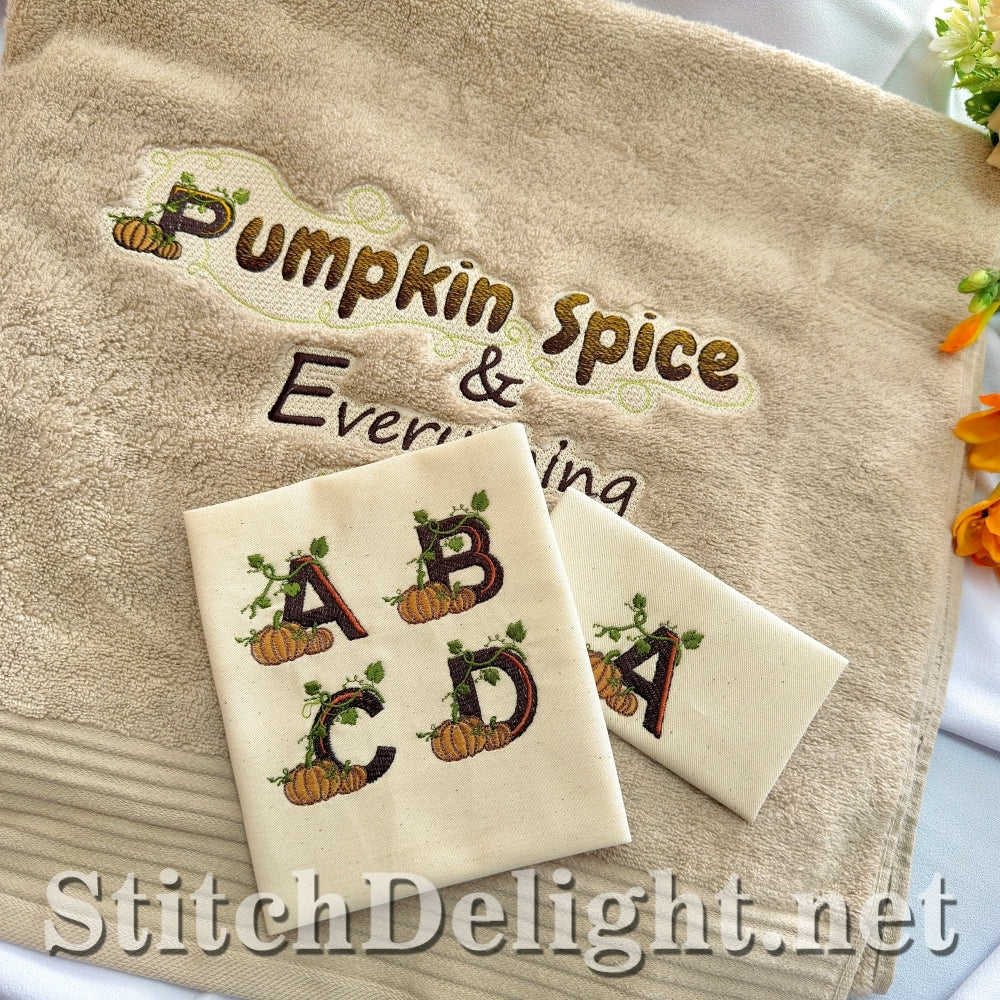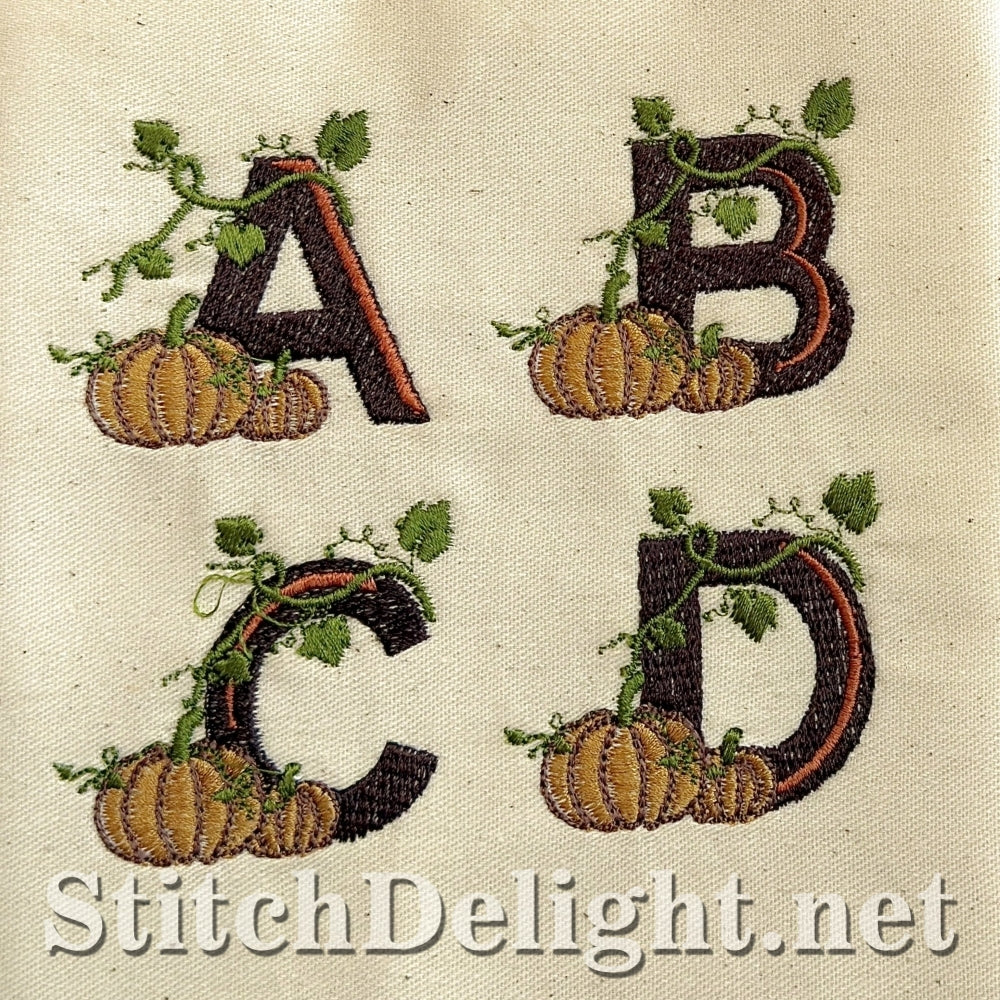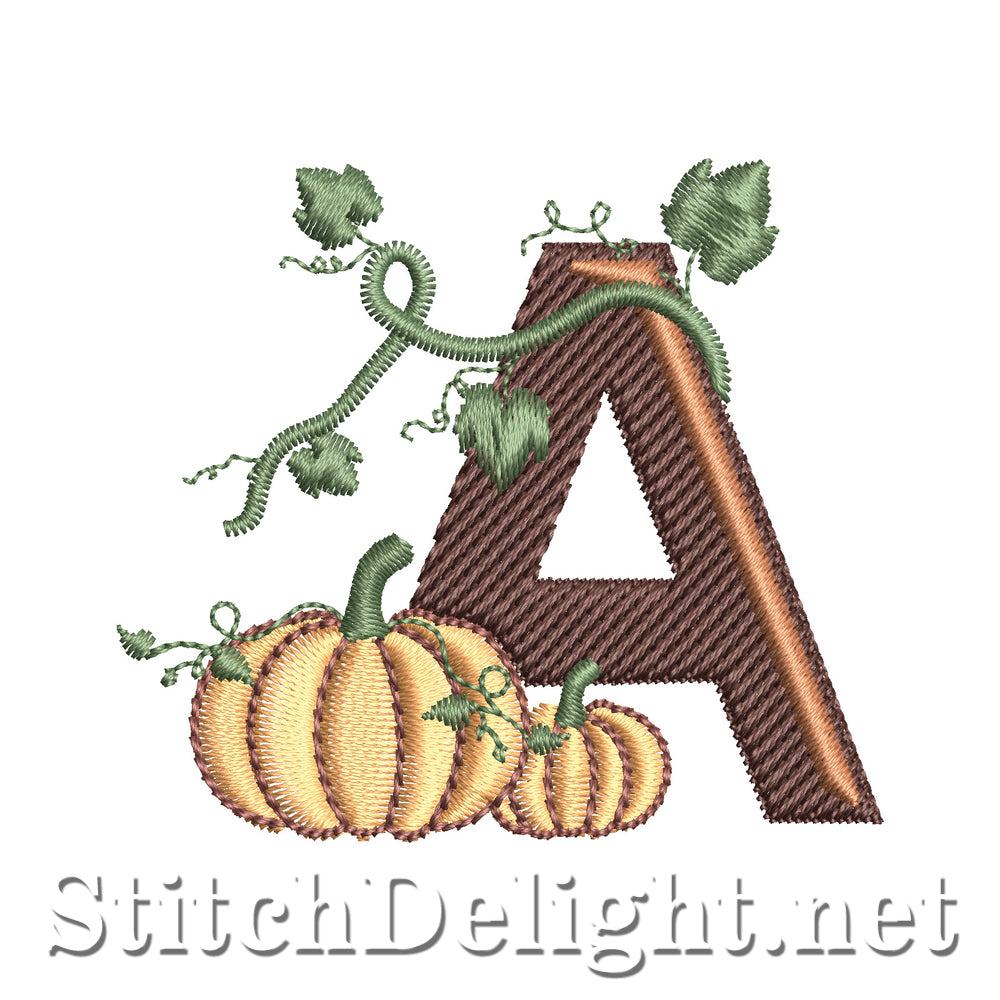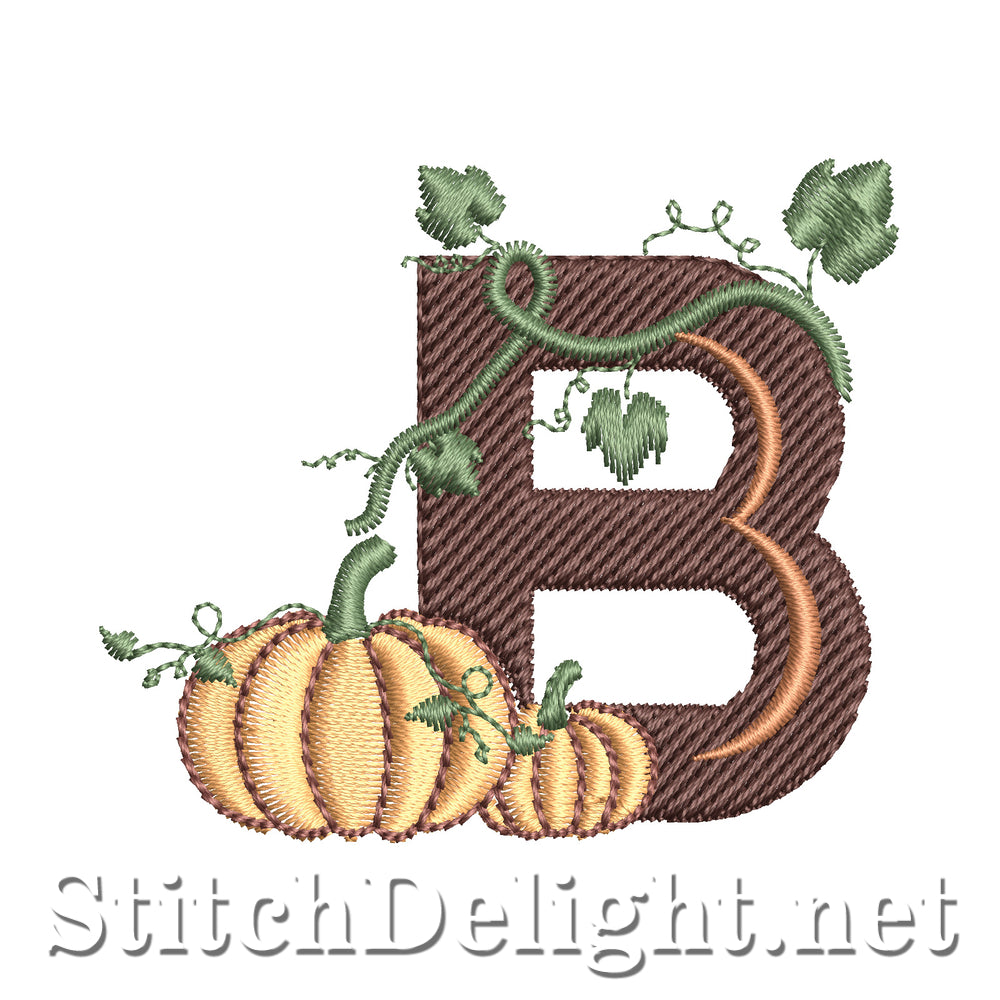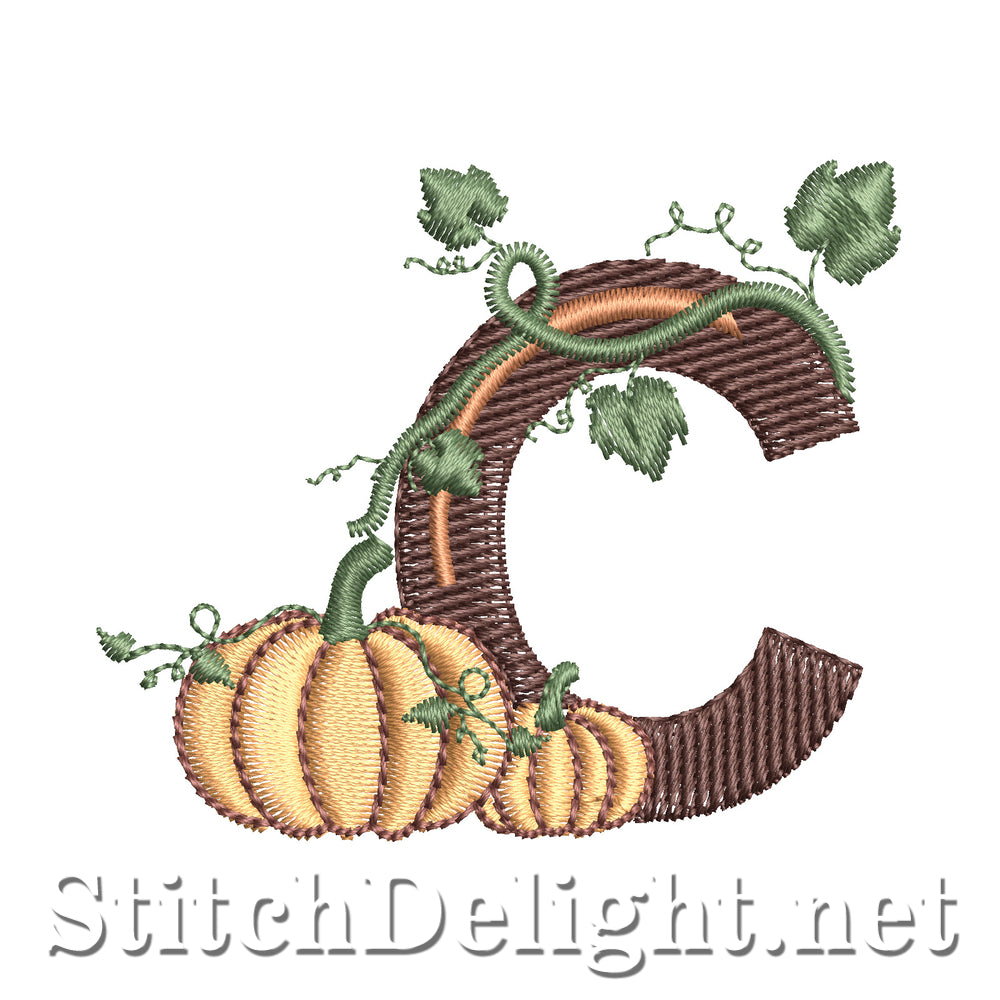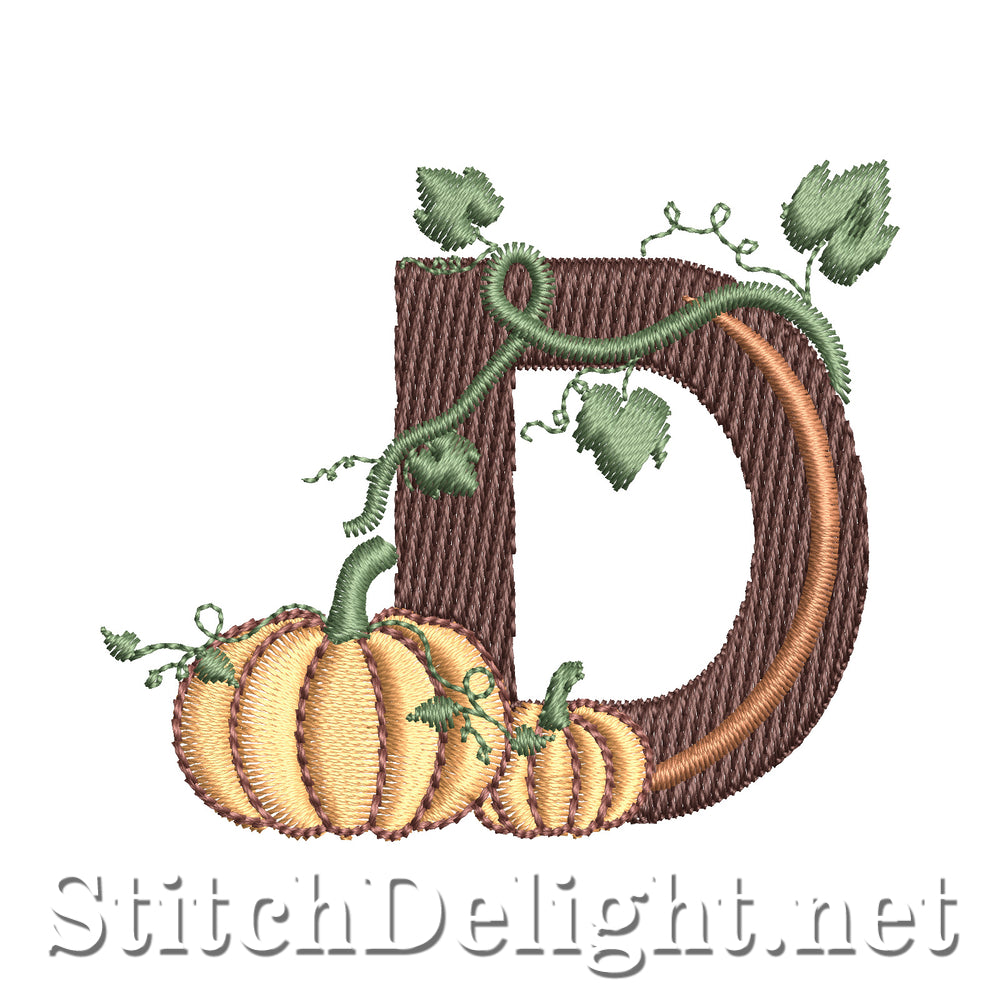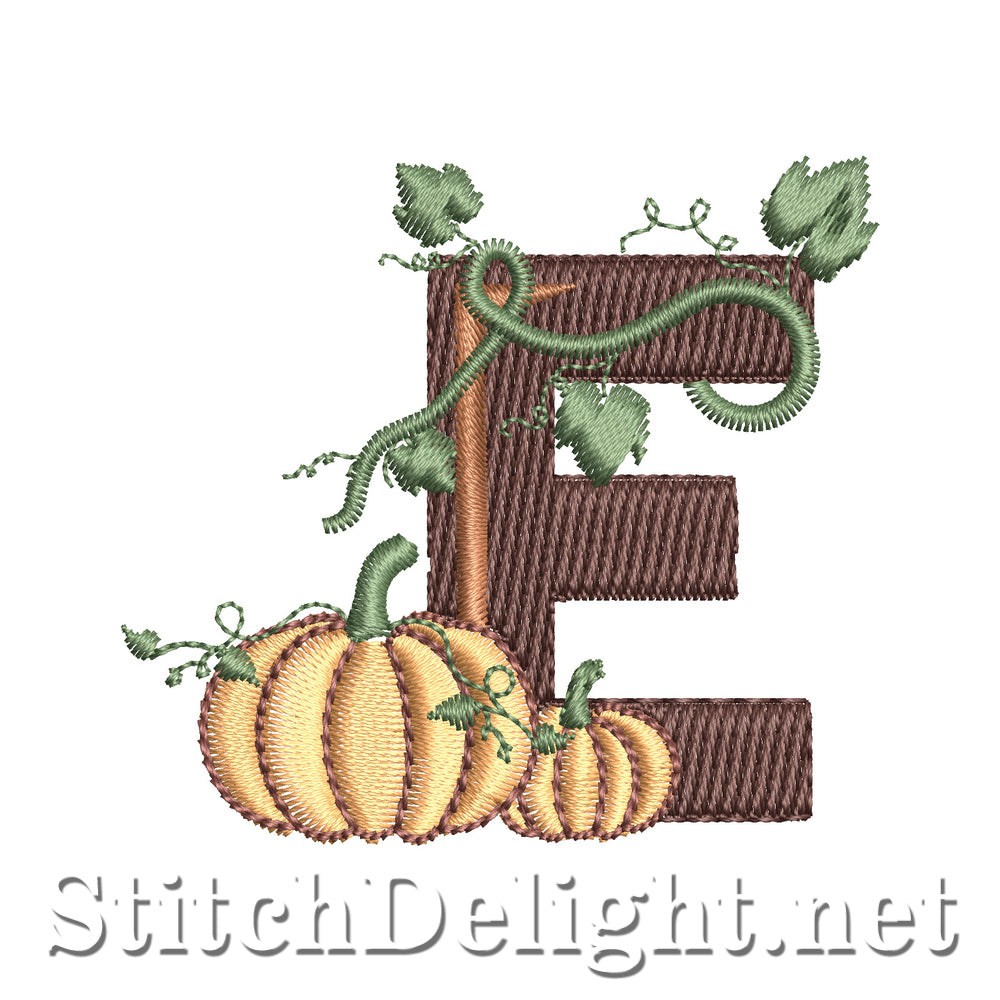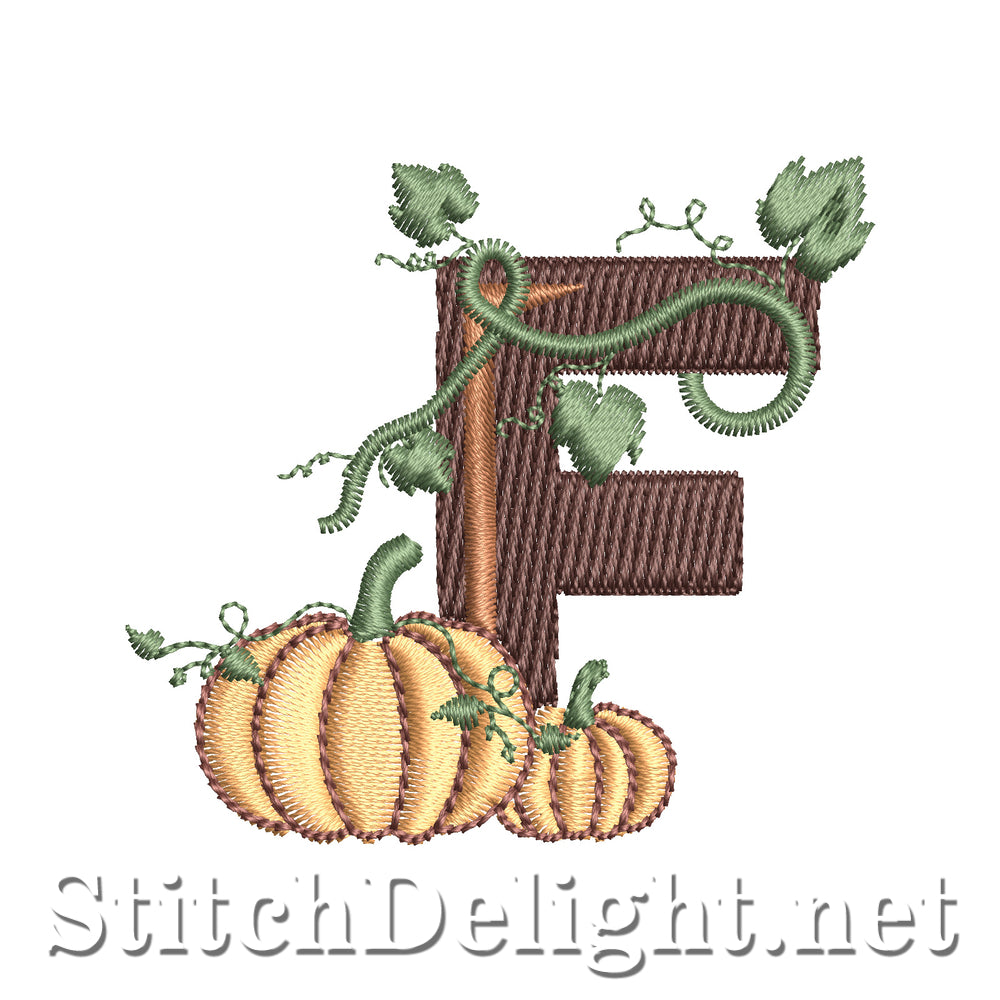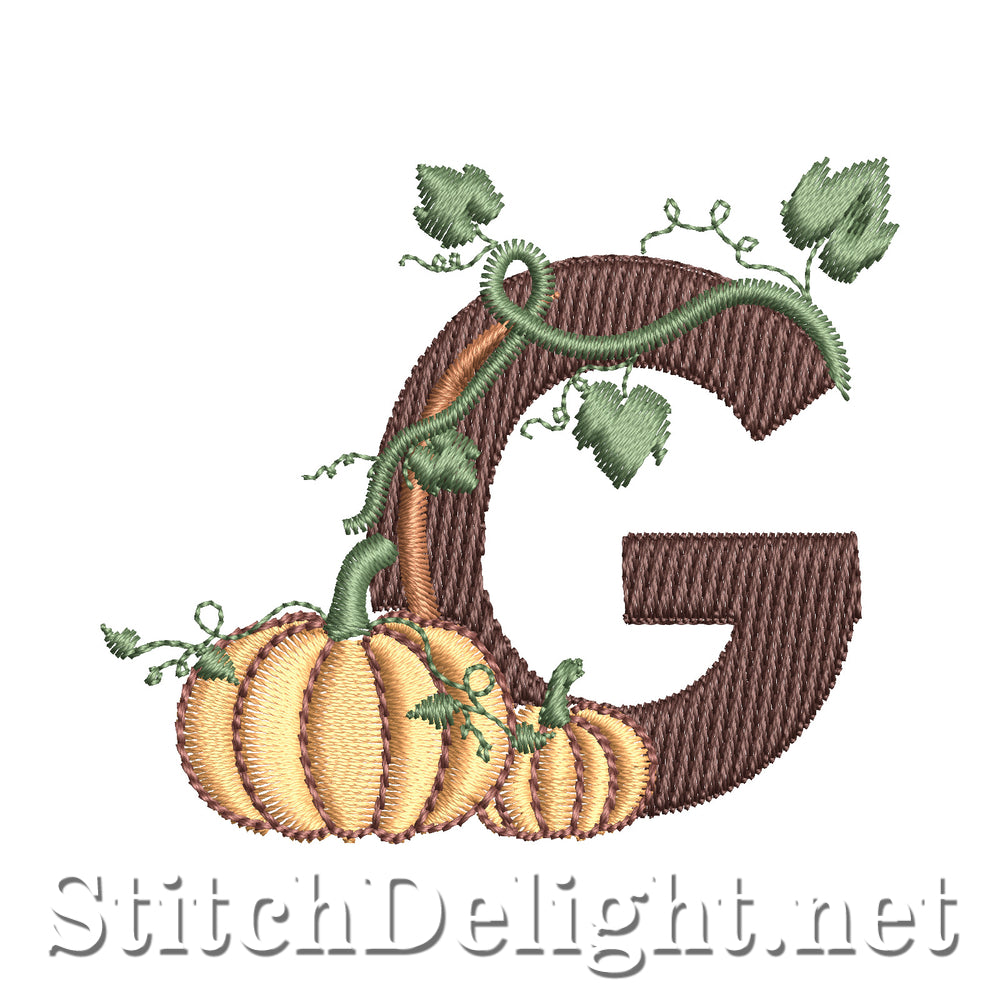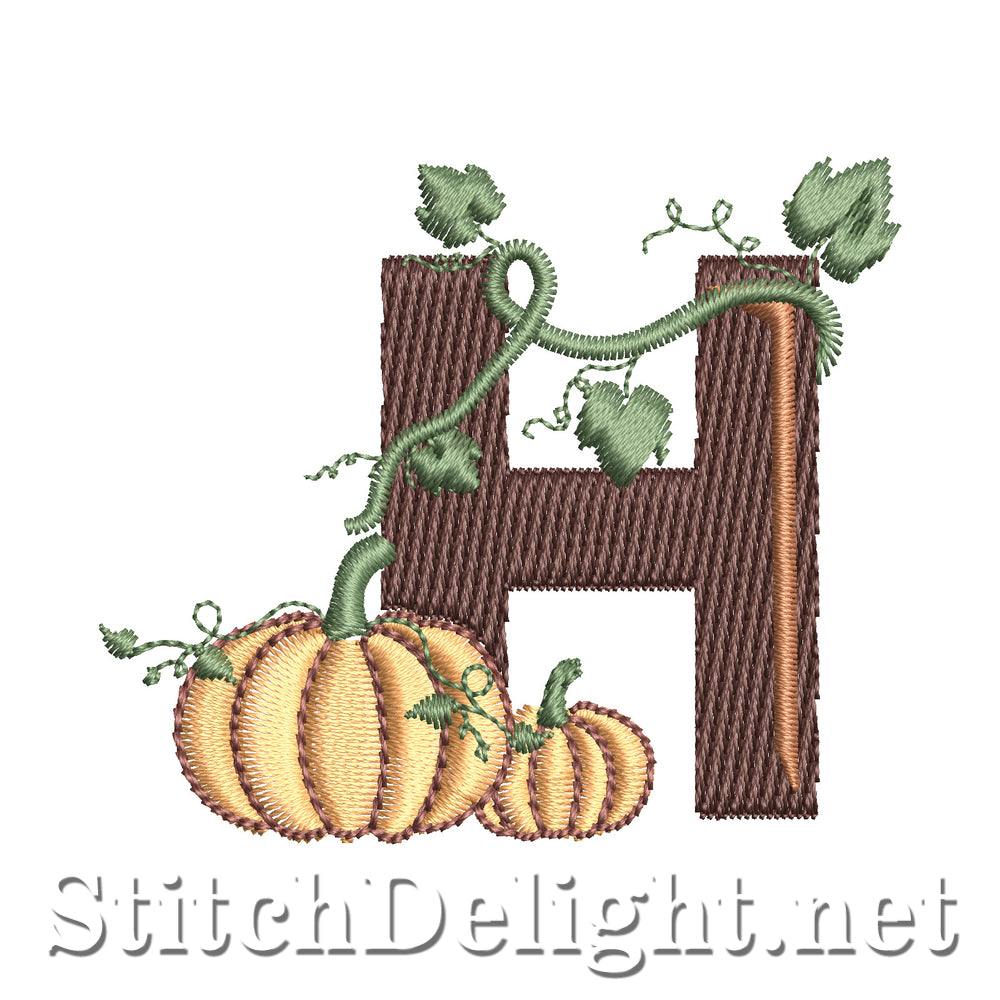
November Collectors Font - Celebrate the cozy charm of autumn with this November Collectors Font, featuring elegant pumpkin and vine accents wrapped around bold block letters. Each letter captures the warmth of the harvest season — perfect for seasonal monograms, towels, napkins, tote bags, or home décor projects.